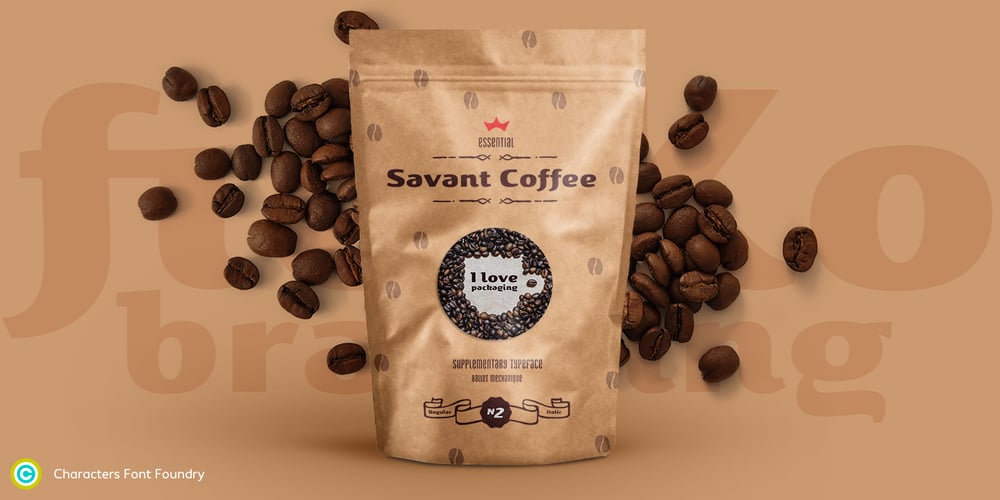
Savant
Savant font
Savant Font Family was designed by René Verkaart and published by Characters Font Foundry. Savant contains 2 styles and family package options. I proudly present Savant, a friendly headline typeface with an attitude. It’s got a slab serif touch and is packed with lots of nice typo-gems. The italic is a perfect companion for the regular. But beside that, it’s powerful enough to stand its own ground. Savant is a good mixture of the playful and the classic. You can use it for fashion, food, magazines, packaging, corporate design- and other projects with an attitude. So show me what you’ve got! Savant Regular only is completely free in 2012, so download your free copy today!